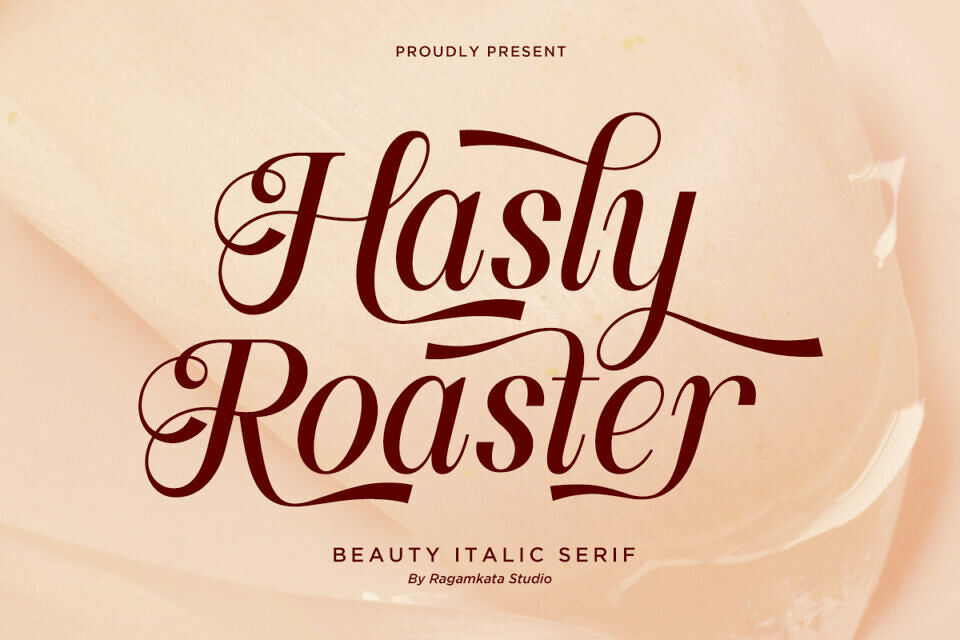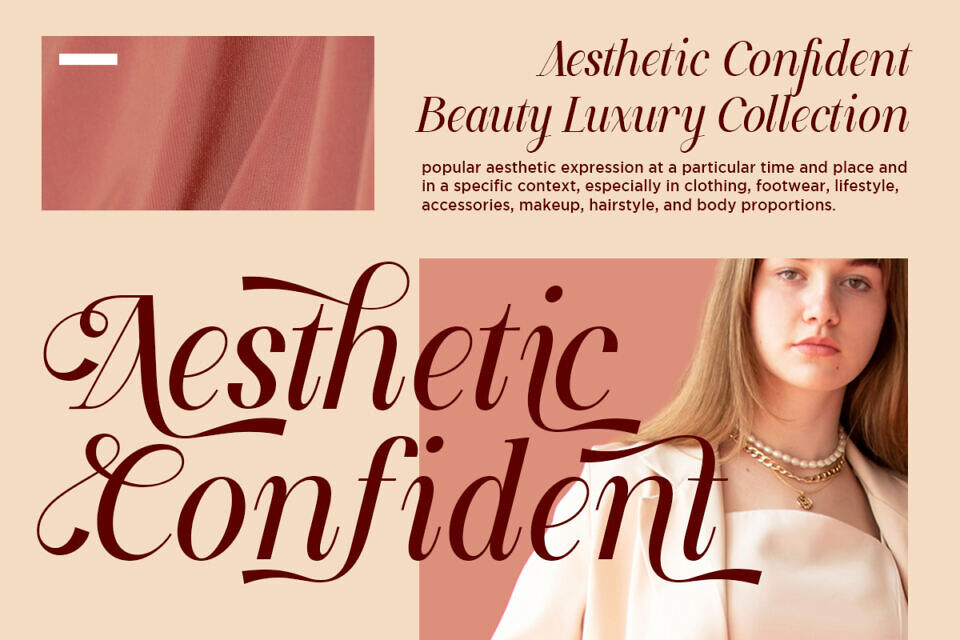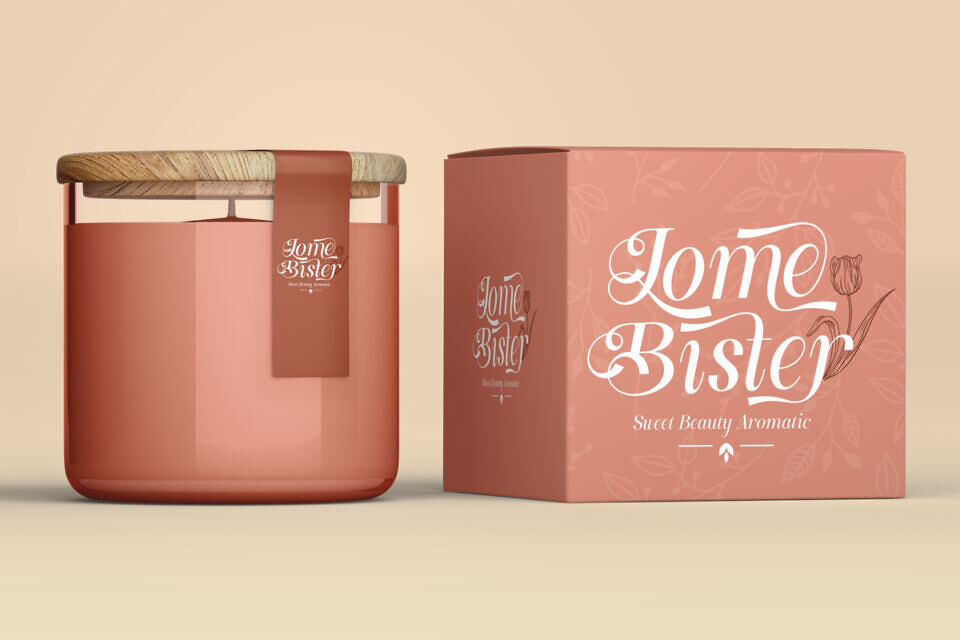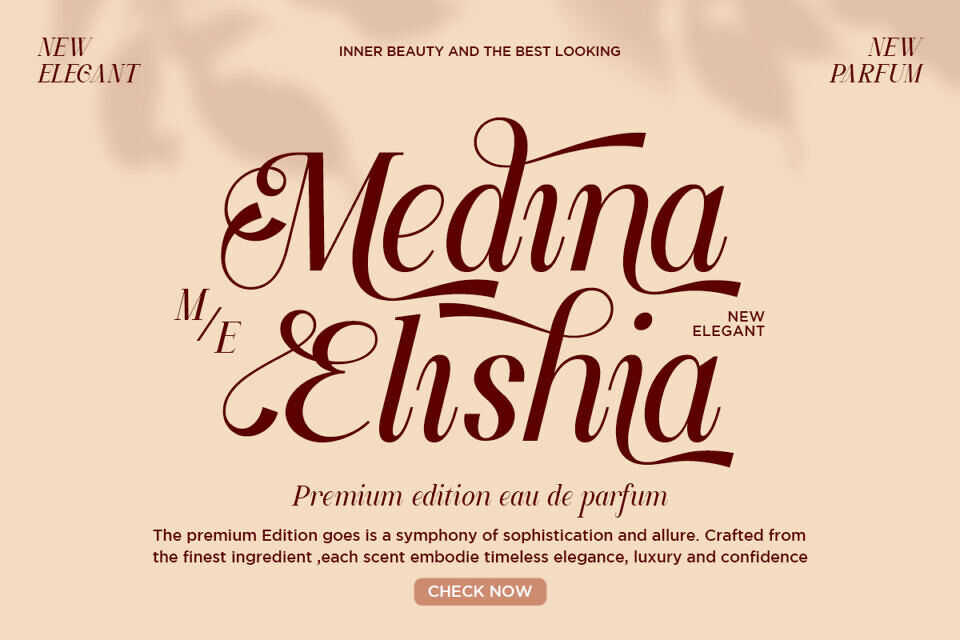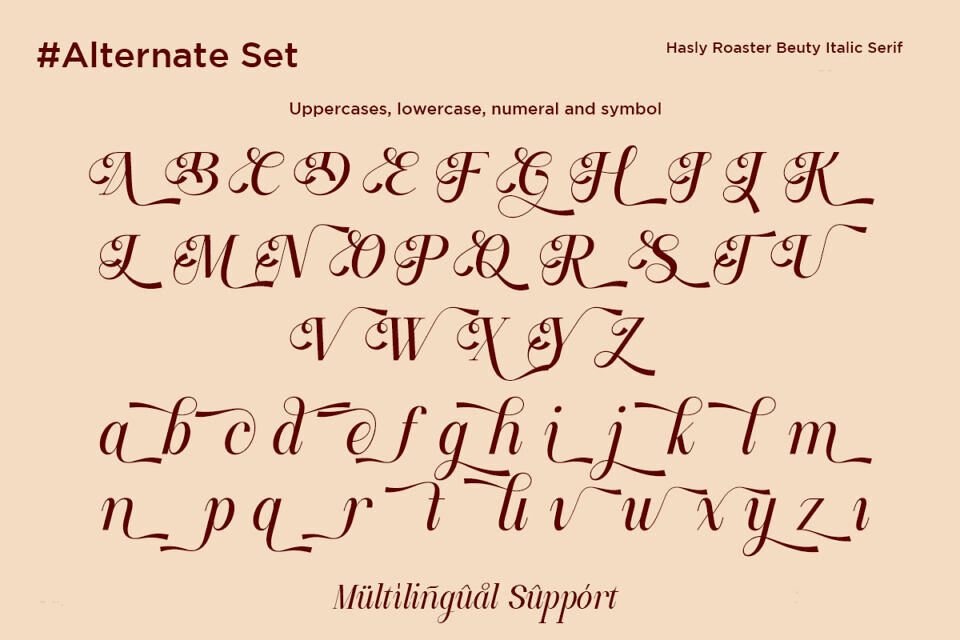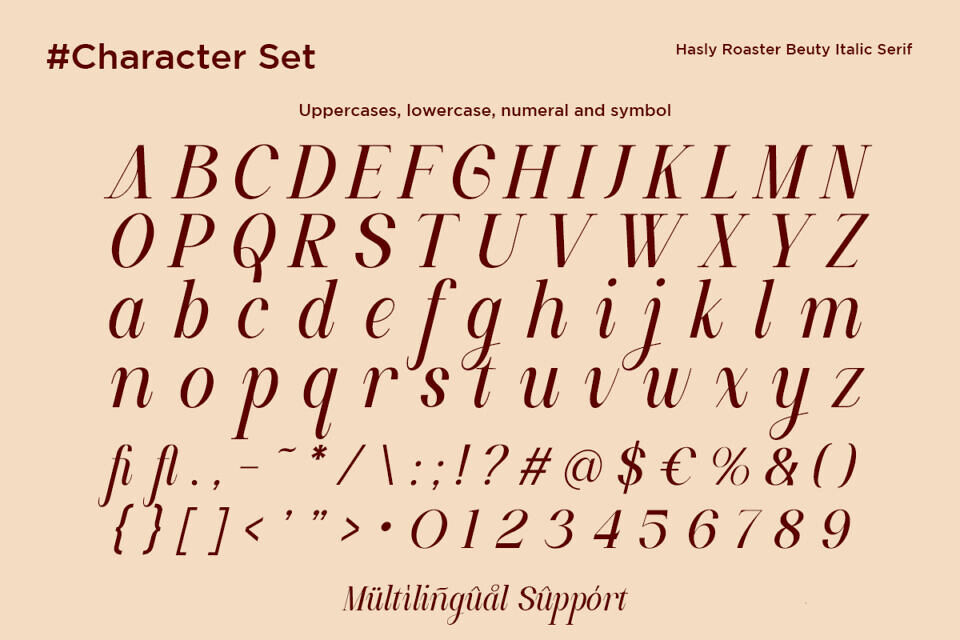
Hasly Roaster is a luxurious beauty italic serif font that blends elegance and sophistication in every stroke. With its graceful curves, stylish ligatures, and refined contrast, this typeface is perfect for branding, wedding invitations, logos, packaging, fashion designs, and editorial projects.
Designed by Ragamkata Studio, Hasly Roaster brings a timeless charm that enhances any creative work with a modern classic touch.